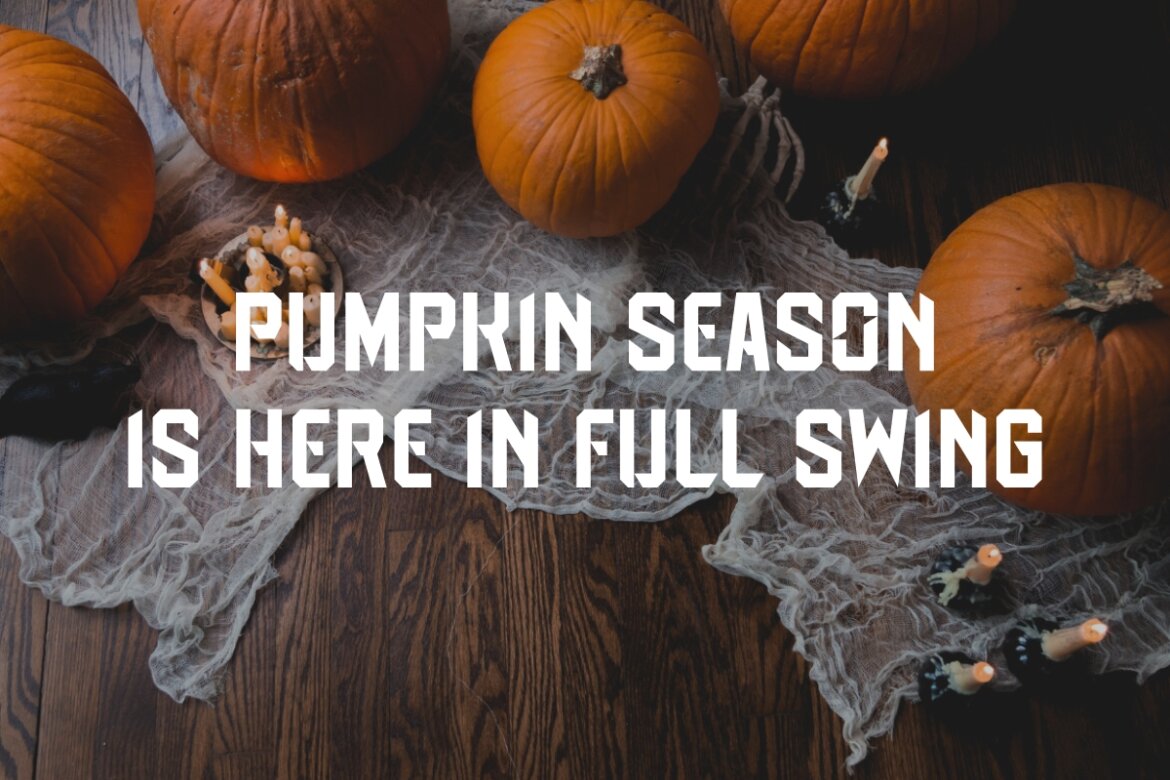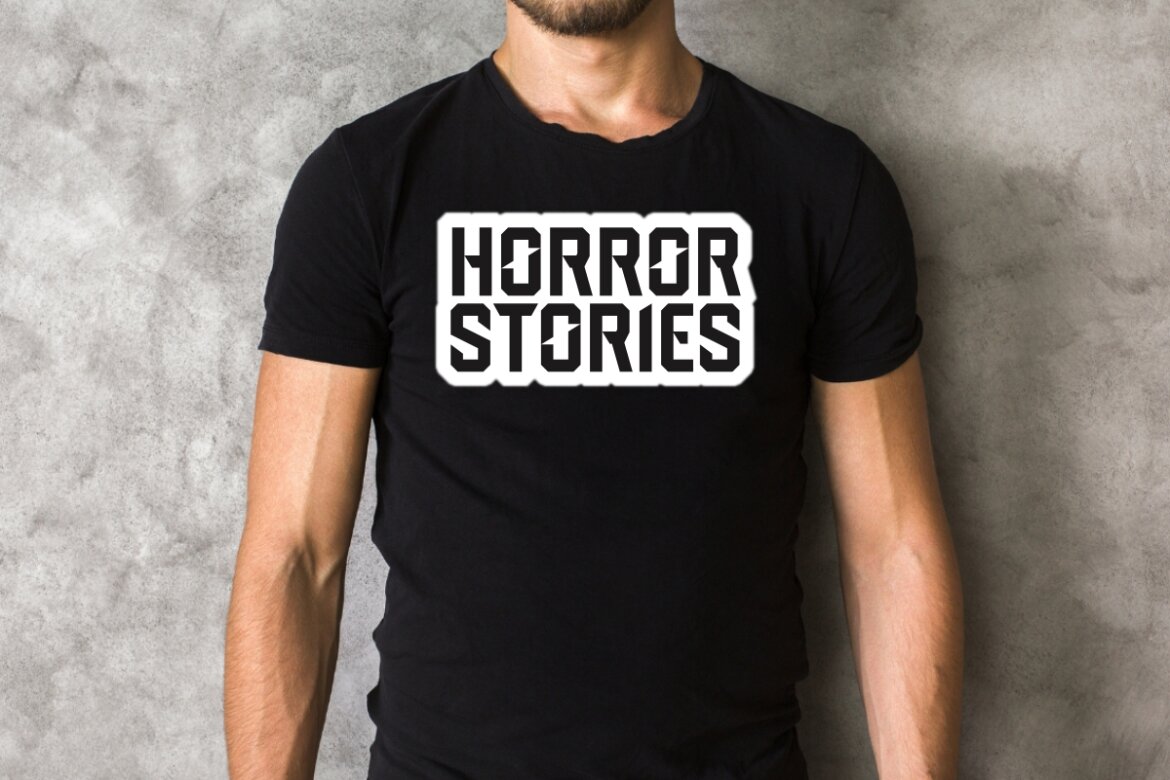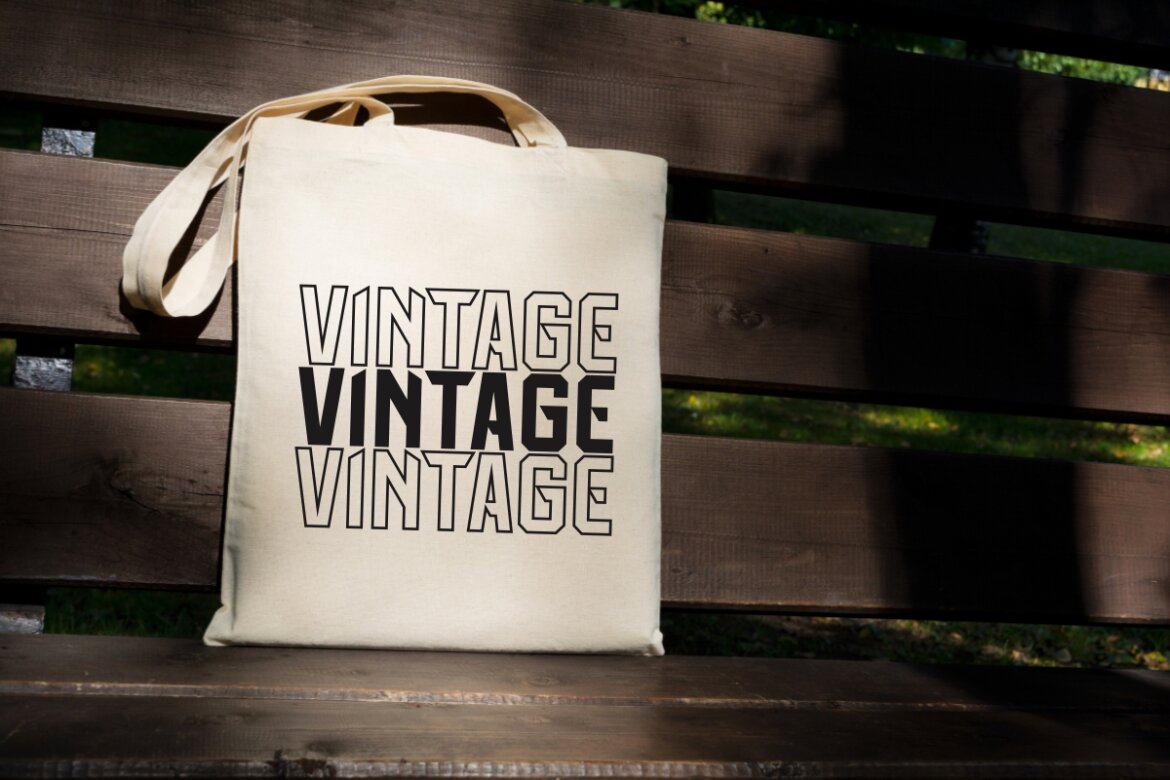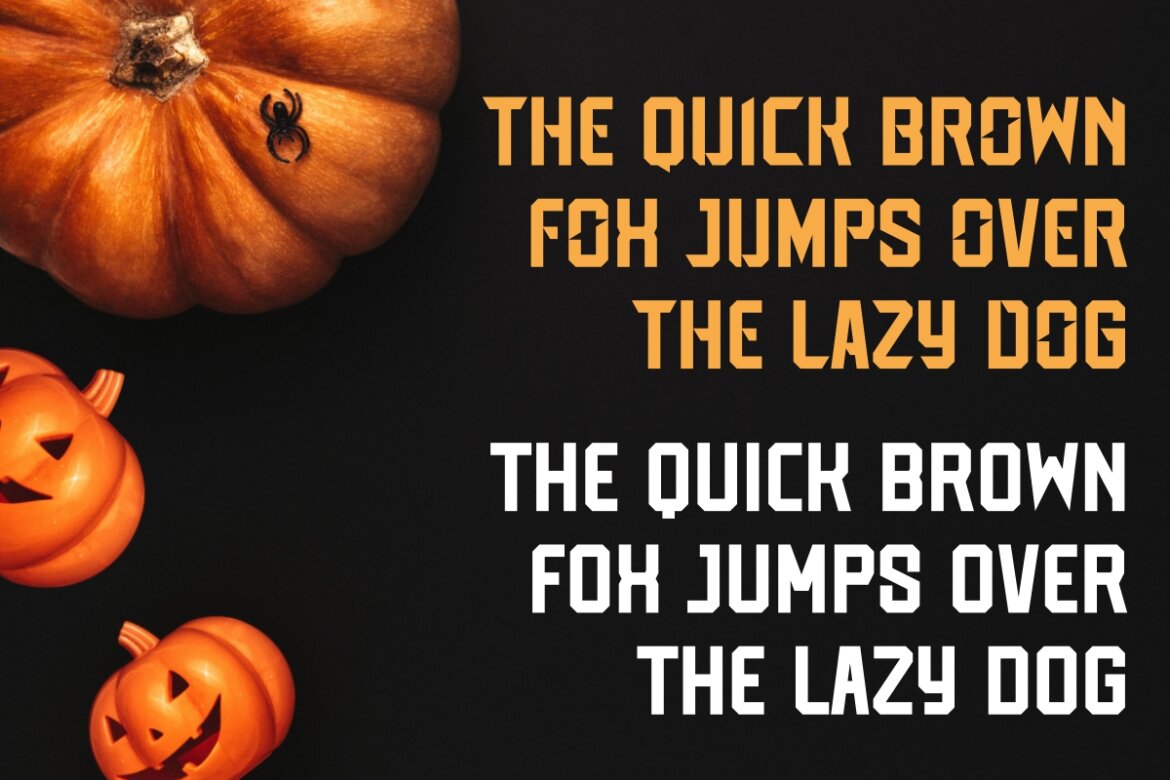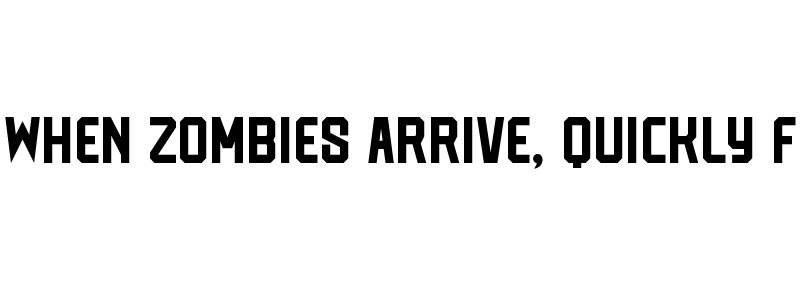
Spooky Pumpkin
Spooky Pumpkin is a quirky vintage and bold sans serif font that captures the essence of Halloween. This font perfectly balances eerie elegance with a fun and unique style. With its unique and eerie elegance, "Spooky Pumpkin" adds a cool and creepy vibes to any design project, making it an excellent choice for those looking to capture the Halloween spirit.
• Multilingual Support
• Numbers and punctuation
• Uppercase & lowercase